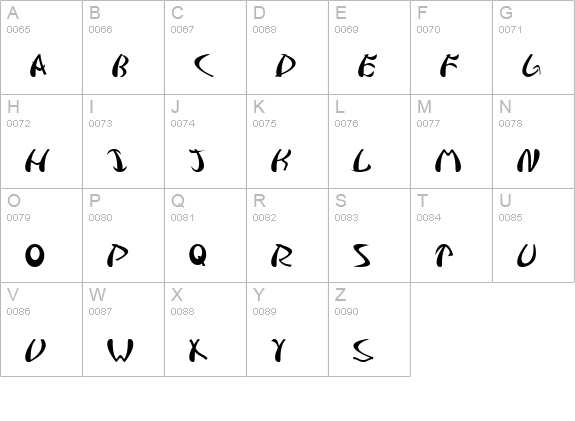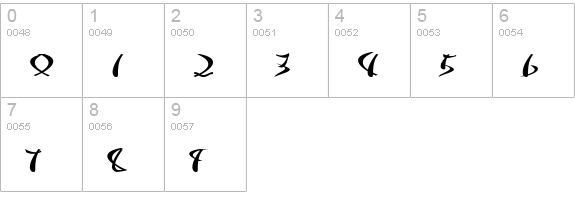
Samuraiheb Font Details
Introducing Samuraiheb Font, a captivating and dynamic typeface that embodies the spirit of ancient warriors. With its bold and striking letterforms, Samuraiheb Font exudes strength, elegance, and a touch of mystique. Designed for those who seek a truly unique and powerful font, Samuraiheb Font is the perfect choice for a wide range of design projects. Whether you are creating a logo, poster, or website, this font will make a lasting impression on your audience. The beauty of Samuraiheb Font lies not only in its visually stunning appearance but also in its versatility. Its clean and crisp lines make it highly legible, ensuring that your message is conveyed with clarity and impact. What sets Samuraiheb Font apart is that it is freely available to download at FontsMarket.com. This means that you can use this extraordinary font without any restrictions or limitations. Embrace the freedom to express your creativity and unleash the power of Samuraiheb Font in your designs. With its seamless compatibility across various platforms and applications, Samuraiheb Font is incredibly user-friendly. Whether you are a professional designer or a beginner, you can easily incorporate this font into your projects and bring them to life. Immerse yourself in the world of ancient warriors and harness the strength and elegance of Samuraiheb Font. Download it for free at FontsMarket.com and embark on a journey of creativity and inspiration. Unleash the power of Samuraiheb Font and make a lasting impression with every design you create.